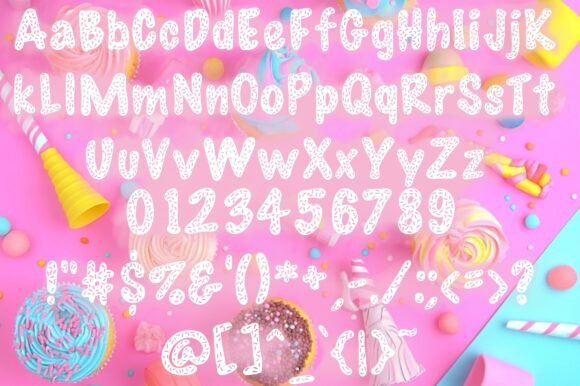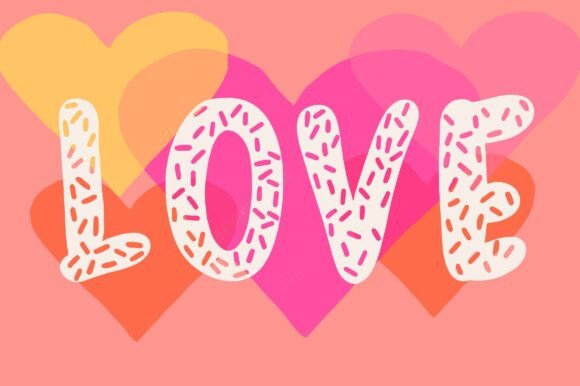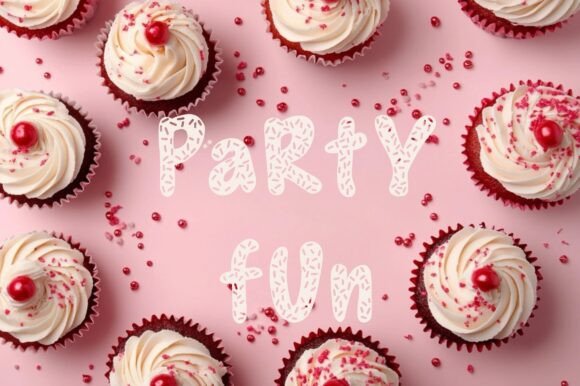
Introducing Confetti Sprinkles Font: Add a Playful Touch to Your Designs
Get ready to sprinkle some festive cheer and playful whimsy into your designs with Confetti Sprinkles, an enchanting hand-drawn font that celebrates the innocent joy of, well, confetti and sprinkles. This delightful typeface is perfect for designers and crafters looking to add a touch of fun and personality to their creations.
The Charm of Confetti Sprinkles
The eccentric charm of Confetti Sprinkles lies in its inclusion of both lowercase and uppercase letters, numerics, and a holistic selection of punctuation, making it a versatile choice for your creative endeavors. The font’s playful and whimsical nature is reminiscent of sugar-coated candies, with charmingly imprecise details that breathe life into diverse use cases.
Use Cases for Confetti Sprinkles
Confetti Sprinkles is perfect for a wide range of design projects, including:
• Lively birthday or baby shower invitations
• DIY crafting projects like stickers and scrapbooking
• Engaging social media posts
• Cheerful logos
• Product packaging
• Signage
• Tantalizing printables like greeting cards and posters
The Confetti Sprinkles font package includes:
• Uppercase letters
• Lowercase letters
• Numerics
• Punctuation marks
Why Choose Confetti Sprinkles?
Irrespective of whether you’re exploring a fun personal project or crafting designs for customers, Confetti Sprinkles promises to add a playful, colorful flourish to any creation. The font’s unique and whimsical nature makes it perfect for designers and crafters who want to stand out from the crowd and create something truly special.
Tips for Using Confetti Sprinkles
Here are a few tips for getting the most out of Confetti Sprinkles:
• Experiment with different colors and textures to add depth and interest to your designs
• Use Confetti Sprinkles in combination with other fonts to create a unique and playful look
• Don’t be afraid to get creative and try out new and innovative uses for the font
Confetti Sprinkles is a delightful and versatile font that is perfect for designers and crafters looking to add a touch of fun and personality to their creations. With its playful and whimsical nature, charmingly imprecise details, and wide range of use cases, Confetti Sprinkles is sure to become a favorite in your design toolkit. So why wait? Get ready to sprinkle some festive cheer and playful whimsy into your designs with Confetti Sprinkles!